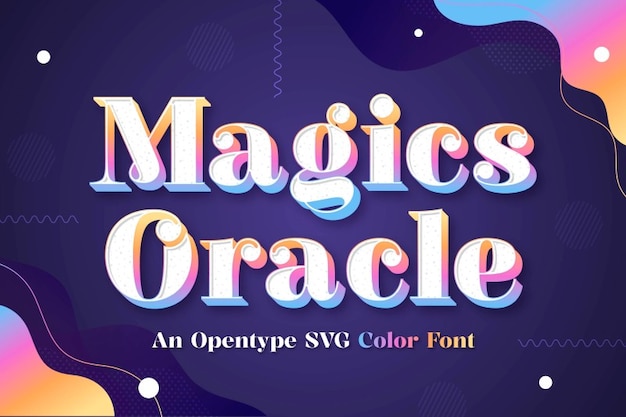
Magics Oracle is a mystical typeface with large loops and prominent ears, creating an enchanting, flowing rhythm. Its subtle 3D depth enhances its ethereal presence, evoking the wisdom of an oracle. With a balance of elegance and mystery, this font is perfect for magical, fantasy-inspired designs that need a touch of the arcane and the extraordinary